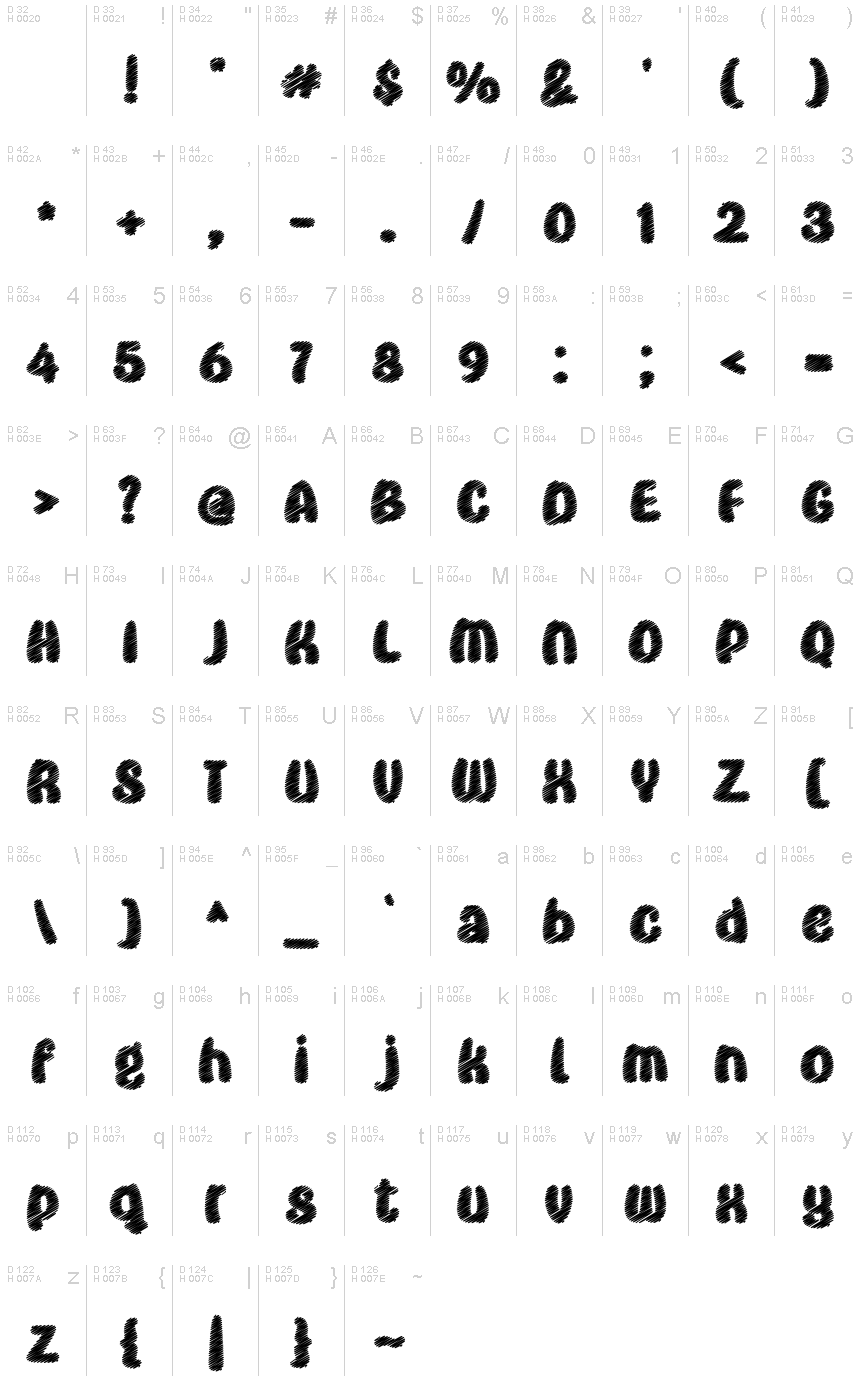
Super Scribble
Super Scribble, a bold display font designed by fsuarez913, commands attention with its dynamic, hand-drawn aesthetic. Brimming with energy and personality, this font exudes a playful, artisanal charm that instantly captivates the viewer. The uneven, expressive strokes and varied line weights create a sense of spontaneity, evoking the organic feel of a handwritten script.
Super Scribble's versatility makes it a compelling choice for a wide range of design applications. Its bold, distinctive style lends itself well to branding, packaging, and headline text, adding visual impact and a touch of whimsy to any project. Whether crafting eye-catching posters, dynamic social media graphics, or attention-grabbing product labels, Super Scribble by fsuarez913 has the power to elevate and transform the design.